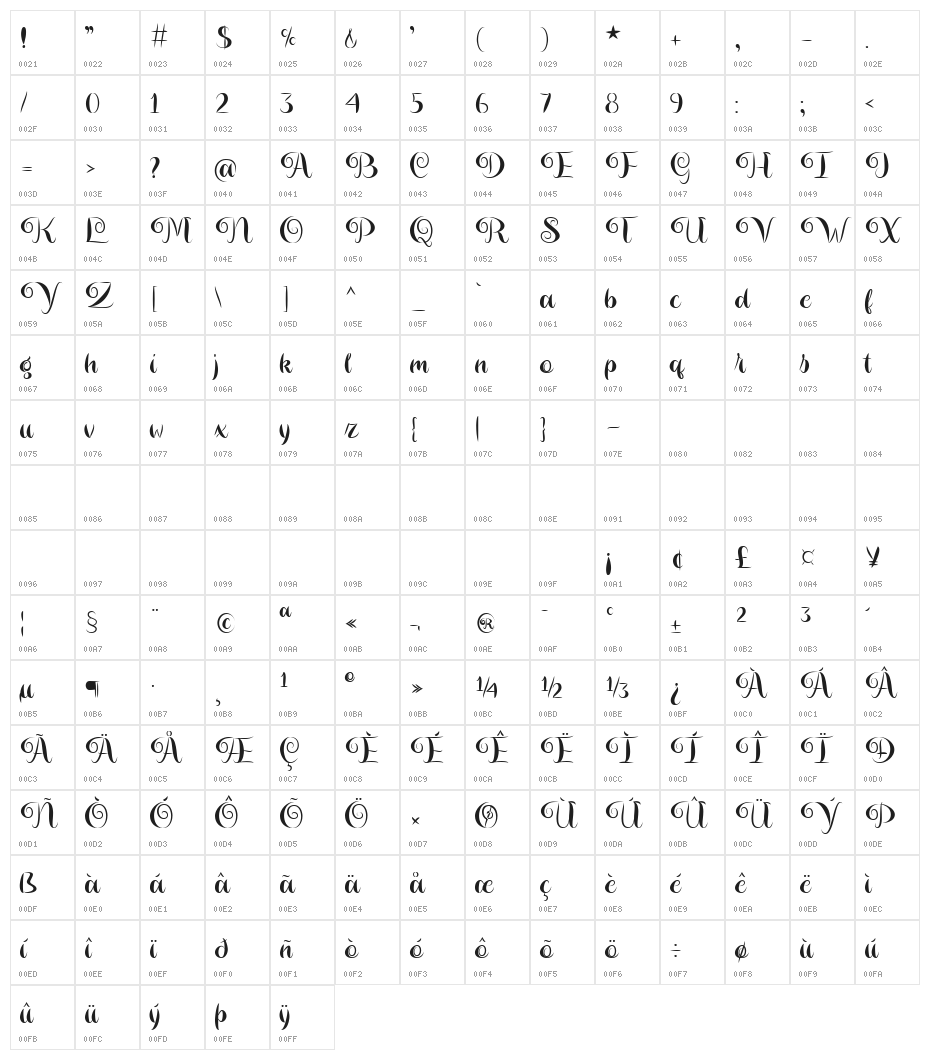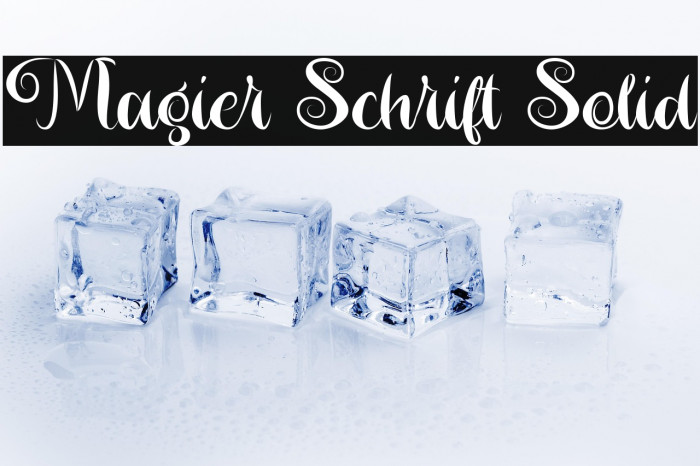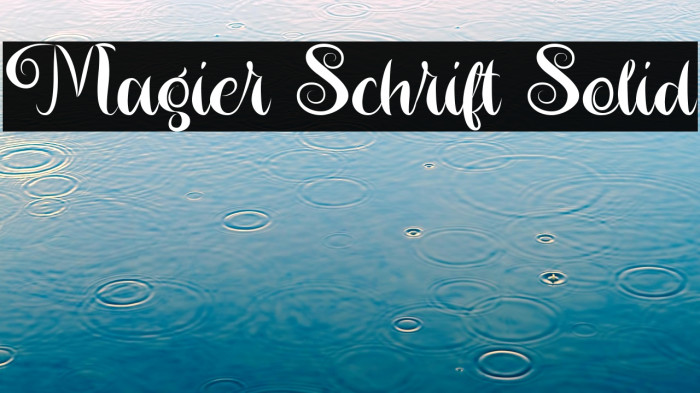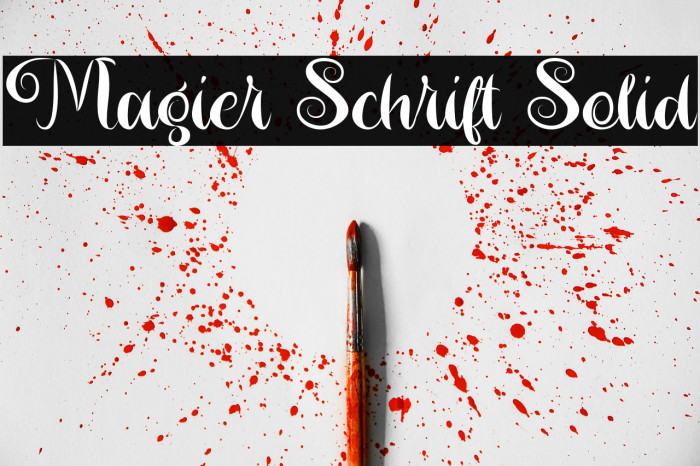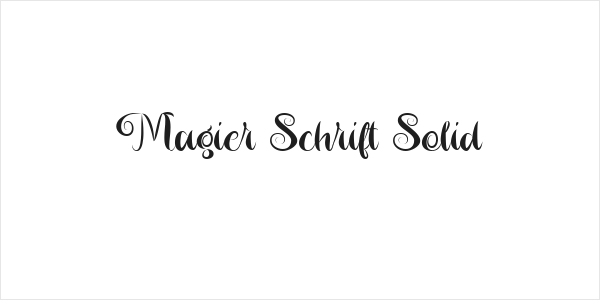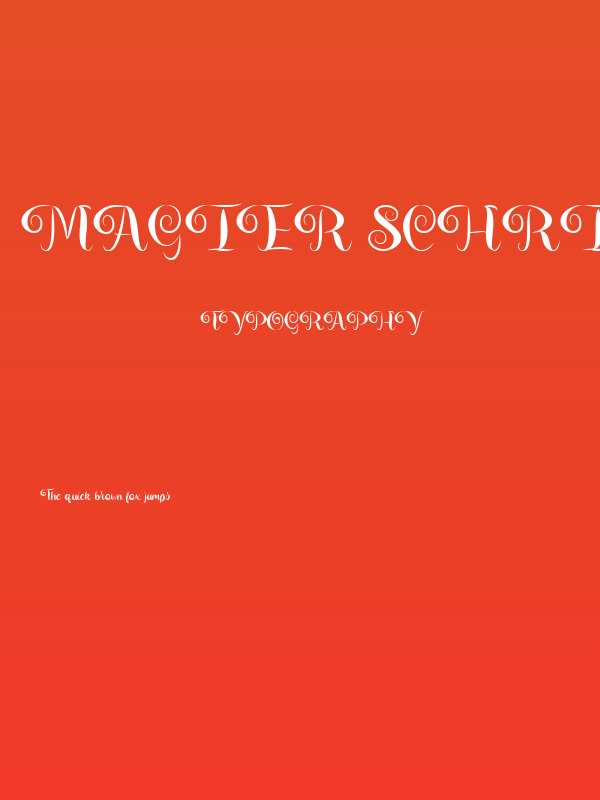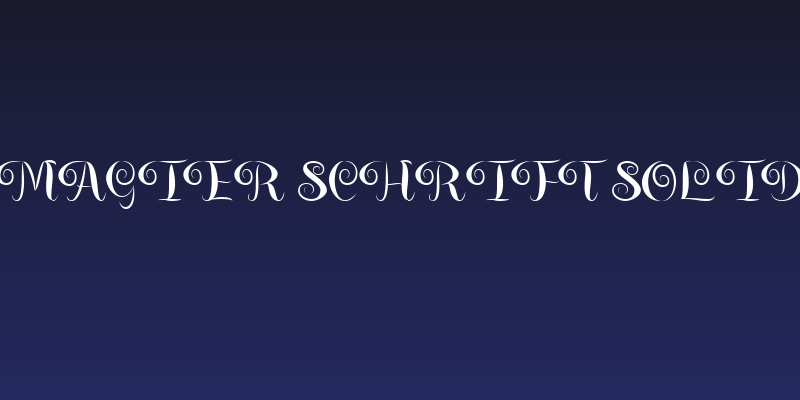
Magier Schrift Solid Font
Magier Schrift Solid Description
This font features an elegant and decorative style with a whimsical flair. The uppercase letters are characterized by flowing, ornate curves and swirls, giving them a sophisticated and artistic appearance. The lowercase letters maintain a similar decorative quality, with smooth, flowing lines and a slightly playful touch. The numerals are bold and maintain the decorative theme, ensuring consistency across the font. Special characters are uniquely styled, adding to the font's overall charm. This font is ideal for projects that require a touch of elegance and creativity.